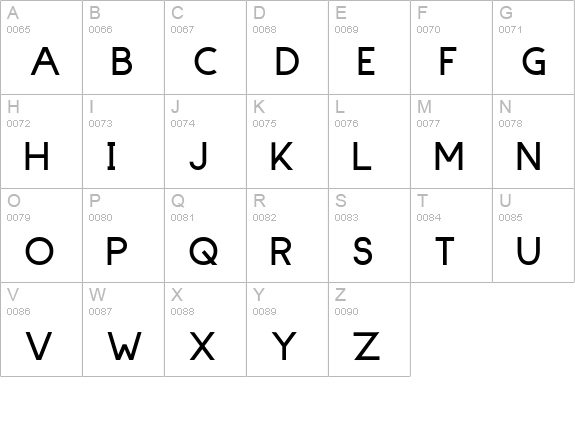
FortuneCity Font Details
FortuneCity font is a modern and stylish typeface that exudes sophistication and elegance. Its clean lines and sleek curves make it perfect for a wide range of design projects, from branding to editorial design. Whether you're creating a sleek logo or designing a sleek website, FortuneCity font is sure to make a statement. The best part about FortuneCity font is that it is completely free to download at FontsMarket.com. This means that you can access this beautiful typeface without any cost, making it a valuable addition to your font library. With its versatility and timeless appeal, FortuneCity font is a must-have for any designer looking to elevate their work to the next level. Download it today and see the magic it brings to your projects!